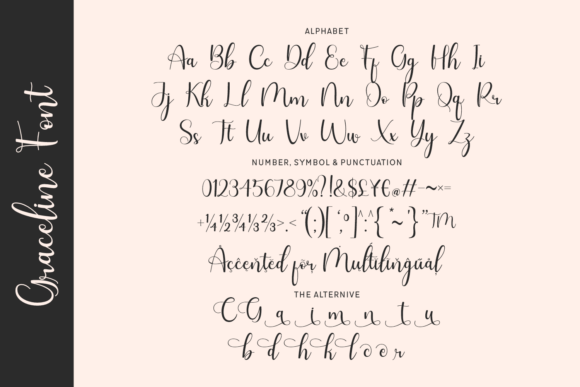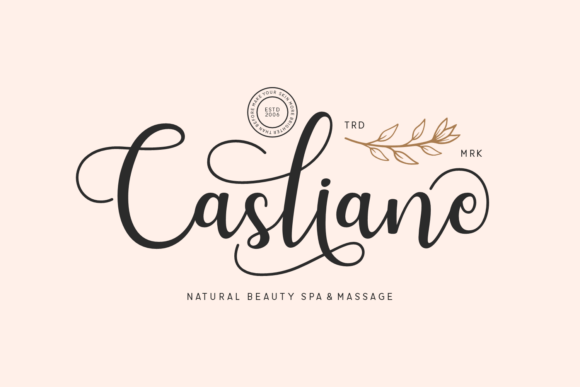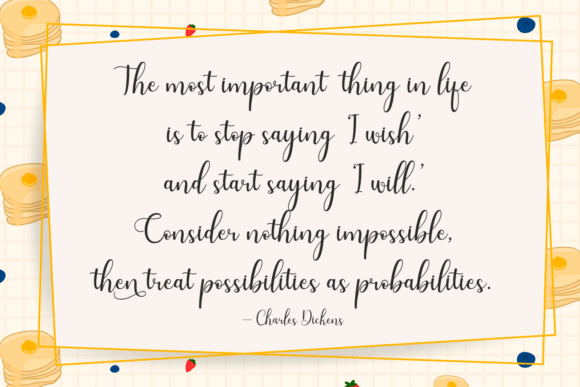
The Elegance of Graceline Font: A Designer’s Delight
I still remember the time I was working on a wedding invitation project, and my client asked for a font that exuded elegance and sophistication. I scoured the internet, tried out countless fonts, but nothing seemed to fit the bill. That was until I stumbled upon Graceline Font. Its beautiful swash script letters and flowing curves instantly caught my attention, and I knew I had found the perfect fit. In this article, I’ll share with you why Graceline Font is a must-have in your design arsenal and how to make the most of its stunning features.
A Personal Review of Graceline Font
- ✨ Elegant and flowing letters that add a touch of sophistication to any project
- ✅ Easy to read, despite its fancy feel
- 💫 Perfect for invitations, greeting cards, and other projects where you want to make a statement
- 🎨 Highly versatile and can be used for a wide range of design projects
While Graceline Font is an amazing font, it’s not without its quirks. Here are a few things to keep in mind:
- ⚠️ May not be suitable for body text or long paragraphs, as it’s best used for headlines and titles
- 🤔 Some letters may require manual kerning for optimal spacing
The Story Behind Graceline Font
Graceline Font was designed by a team of typographers who wanted to create a font that embodied elegance and sophistication. Inspired by classic calligraphy and hand-lettering, Graceline Font features beautiful swashes and flourishes that add a touch of luxury to any project. The design team spent countless hours perfecting the font’s curves and lines, ensuring that it’s both beautiful and legible.
Q: What is Graceline Font best used for?
A: Graceline Font is perfect for invitations, greeting cards, and any project where you want to add a touch of elegance and sophistication.
Q: Is Graceline Font easy to read?
A: Yes, despite its fancy feel, Graceline Font is surprisingly easy to read, making it perfect for headlines and titles.
Q: Can I use Graceline Font for body text?
A: While Graceline Font is beautiful, it’s best used for headlines and titles. For body text, you may want to choose a font that’s more legible and easier to read.
Q: Does Graceline Font have OpenType features?
A: Yes, Graceline Font features a range of OpenType features, including swashes, stylistic alternates, and glyphs, which can be accessed in compatible design software.